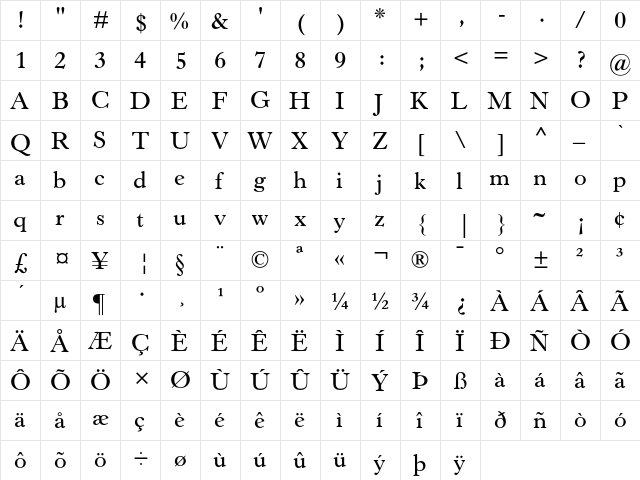
Horley Old Style MT Semi Bold
Design Context for Horley Old Style MT Typeface
Horley Old Style MT is a composed and adaptable typeface that performs quietly and consistently across a wide range of design contexts. The heavy weight commands attention and anchors typographic hierarchies.